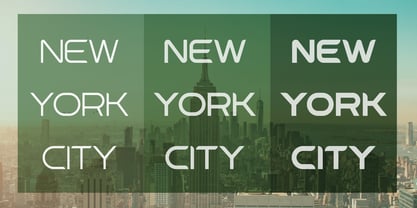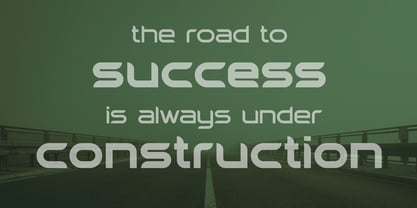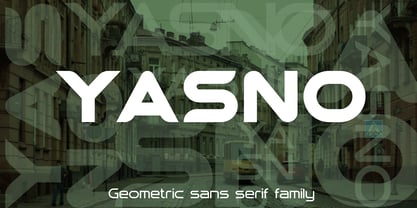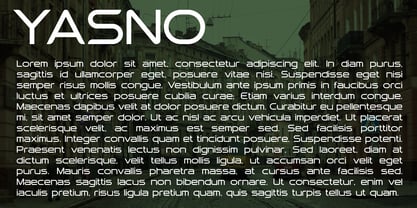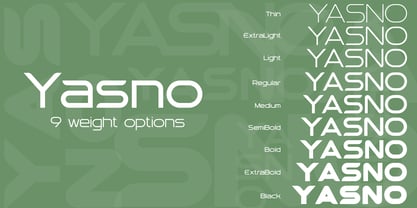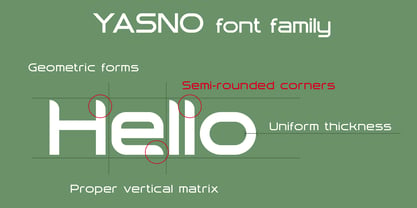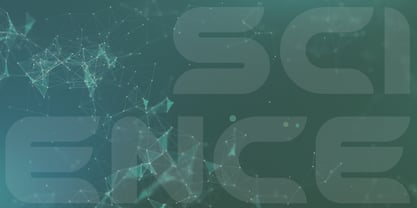
Yasno
by VladB
The Yasno Font Family was designed by Volodymyr Berla and published by VladB. Yasno contains 9 styles and family package options. More about this family
YASNO is a modern sans serif geometric font with semi-rounded corners, includes upper and lower case characters, Latin, Cyrillic, Latin Eastern Europe, Turkish, Baltic and other, 500+ symbols. YASNO family have the 9 types of thickness, divided into 3 subgroups (according to thickness - S(small), M (middle), B (bold)), and have the 3 types of thickness in each subgroup. YASNO fonts will be useful in developing a brand, creating posters and other graphic products, and for word processing.
Designers: Volodymyr Berla
Foundry: VladB
My name is Volodymyr. I have been developing logos and brand elements since 2013. In the process of work, I constantly deal with various fonts, so I gradually came to the decision to independently develop the fonts that I need in my work. Thus, I have developed and continue to develop my collection of fonts. I've been developing fonts since 2019. Currently I design mostly modern and technical typefaces.